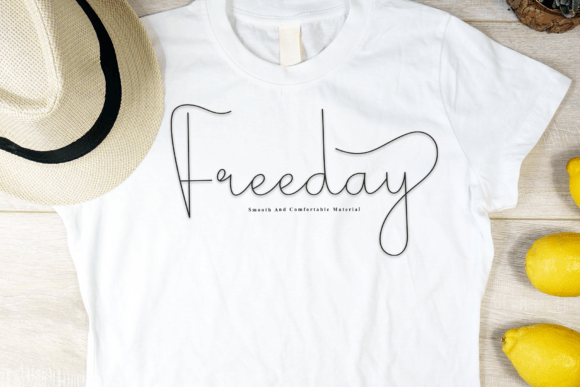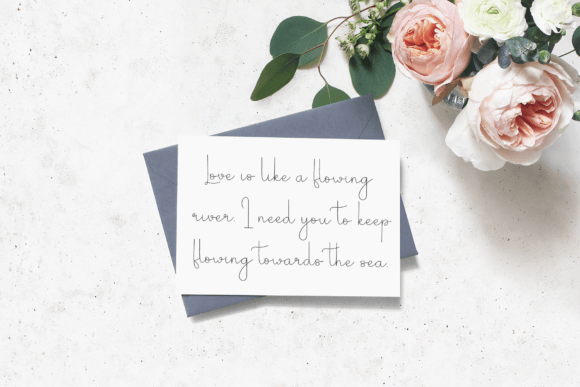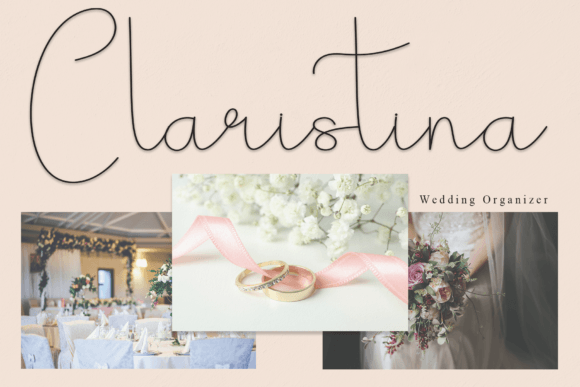
Introduction to Sleetday Vacation Font
Introducing a delightful and personable hand-drawn display font that effortlessly exudes warmth and charm.
With its appealing and playful aesthetic, this font is impeccably suited for crafting captivating wedding invites, heartwarming greeting cards or any design project that could benefit from a sprinkle of whimsy and joy .
Sleetday Vacation Font offers exceptional quality and versatility, making it a valuable addition to your design toolkit. Whether you’re creating for personal projects or commercial use, Sleetday Vacation Font delivers professional results.